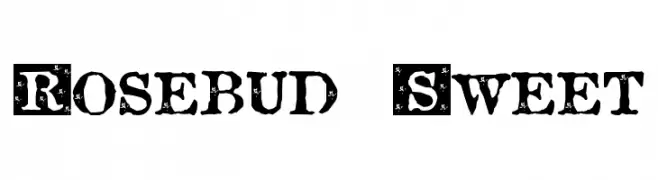
( Fonts by Daniel Gauthier )
A bold, vintage-style font with thick strokes and sharp serifs.
( Fonts by www.vicfieger.com )
A distressed, grungy font with chaotic, worn letterforms.
( Fonts by Michael Tension - www.TensionType.com )
A bold, distressed font with a rugged, textured appearance.
A bold, distressed font with a textured, grunge aesthetic.